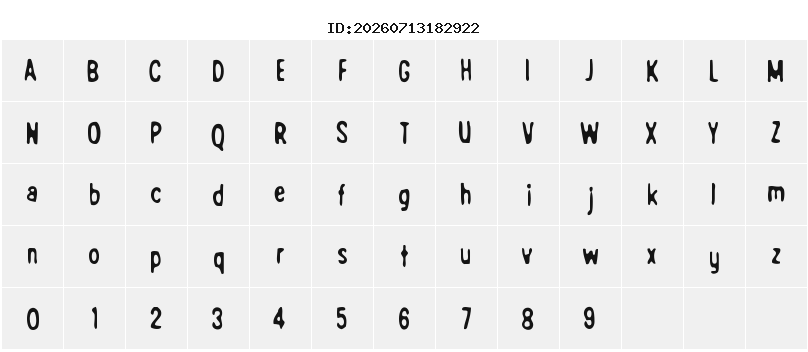
Bad+Quality Preview
• Designer: Woodcutter Manero
About Bad+Quality.ttf
Bad+Quality.ttf is a modern, elegant sans-serif font designed for ultimate readability and visual harmony. Perfect for branding, headlines, web design, and print materials.